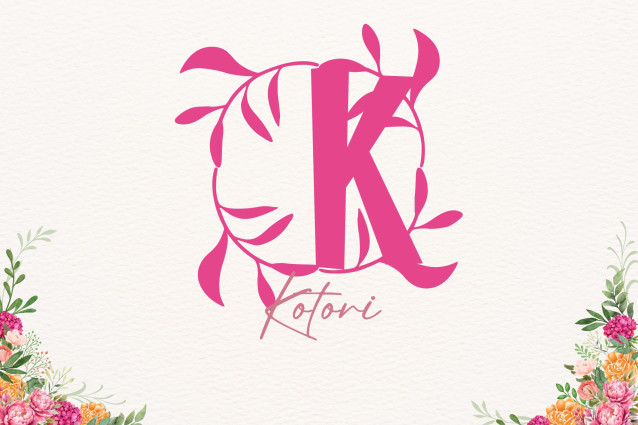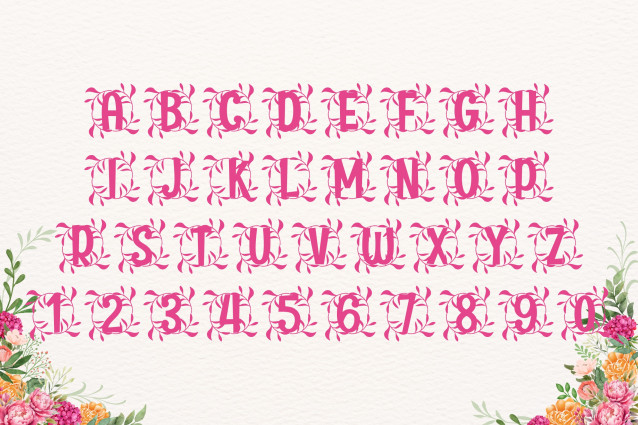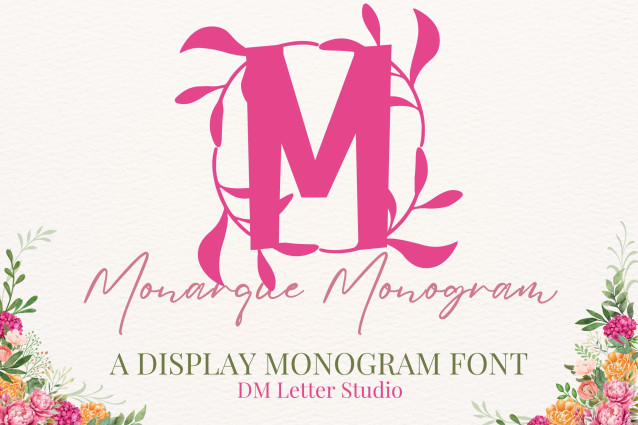
Monarque Monogram Font is a stately serif monogram font designed to bring elegance, refinement, and prestige to your creative projects. Each uppercase letter is crafted with regal detailing, giving your monograms a timeless presence that evokes sophistication and grandeur. Ideal for wedding stationery, boutique branding, luxury packaging, and personalized gifts, this font blends classical design with modern usability.
The design of Monarque Monogram is rooted in tradition but built for versatility. Its structured serif forms provide clarity and strength, while the subtle decorative flourishes add a royal flair. This balance makes it perfect for projects that need a high-end, elegant look without sacrificing legibility. From wedding invitations to upscale product labels, Monarque Monogram ensures your designs feel polished and distinguished.
Monarque Monogram adapts beautifully whether paired with minimalist layouts or combined with ornate design elements. Its regal aesthetic makes it especially effective for luxury branding, event design, premium packaging, and decorative monograms. If your goal is to communicate elegance, power, and refinement, this font will quickly become a staple in your creative toolkit.